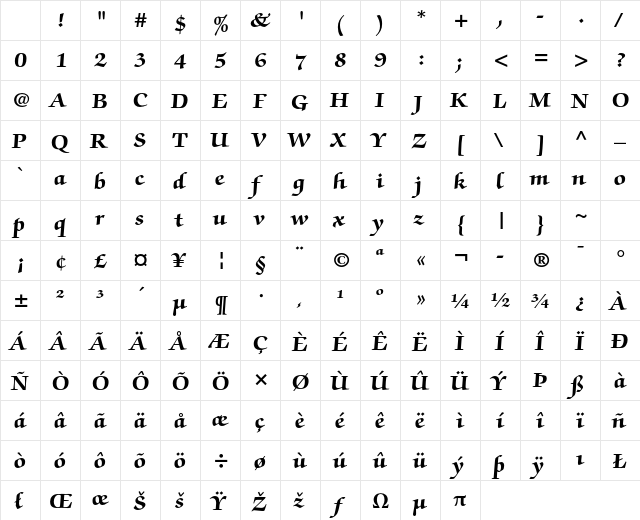
ITC Zapf Chancery Std Bold
Designer: Hermann Zapf
Complete ITC Zapf Chancery Std Bold glyph index. Displaying only characters natively supported by ITC Zapf Chancery Std Bold font.
Design Context for ITC Zapf Chancery Std
ITC Zapf Chancery Std is a composed and adaptable typeface that performs quietly and consistently across a wide range of design contexts. Its bold stroke weight gives it real presence on the page.